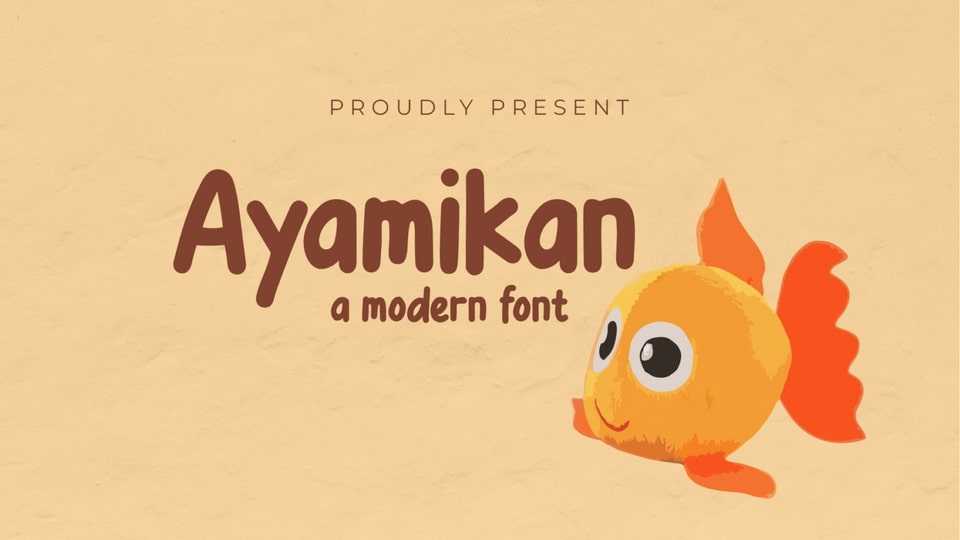
Download Ayamikan font, a modern-looking, hand-written typeface that appears playful and natural. This font is perfect for fun and playful design projects, such as quotes, celebrations, food brands, and children’s designs.